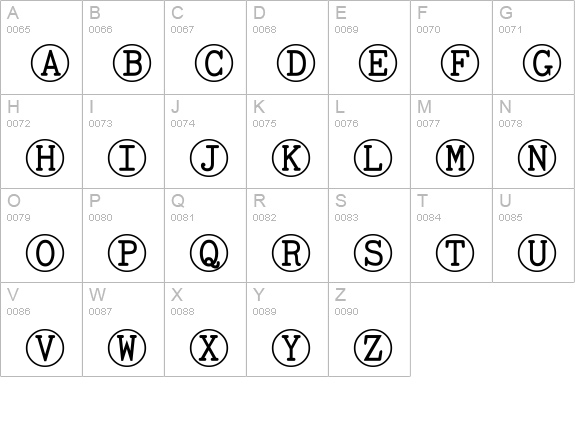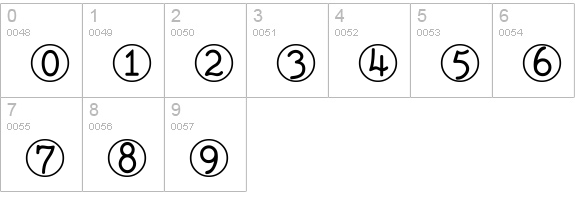
TOCinRings Font Details
TOCinRings font is a captivating and versatile typeface that is sure to make a statement in any design project. With its unique combination of bold lines and delicate curves, TOCinRings font exudes an air of elegance and sophistication. The letters are meticulously crafted, with attention to detail that is evident in every stroke. This font is perfect for adding a touch of class to any design, whether it's a logo, a poster, or a website. Its clean and modern aesthetic makes it suitable for a wide range of applications, from corporate branding to wedding invitations. The versatility of TOCinRings font is further enhanced by its extensive character set, which includes uppercase letters, lowercase letters, numbers, and punctuation marks. One of the best things about TOCinRings font is that it is available for free. That's right – you can download this stunning font without spending a dime. FontsMarket.com is the go-to destination for designers looking for high-quality fonts, and TOCinRings font is no exception. Simply visit FontsMarket.com, search for TOCinRings font, and start using it in your designs today. Whether you're a professional designer or a hobbyist, TOCinRings font is a must-have addition to your font library. Its unique and eye-catching design is sure to draw attention and elevate your projects to new heights. Don't miss out on this incredible opportunity to download TOCinRings font for free at FontsMarket.com and take your designs to the next level.